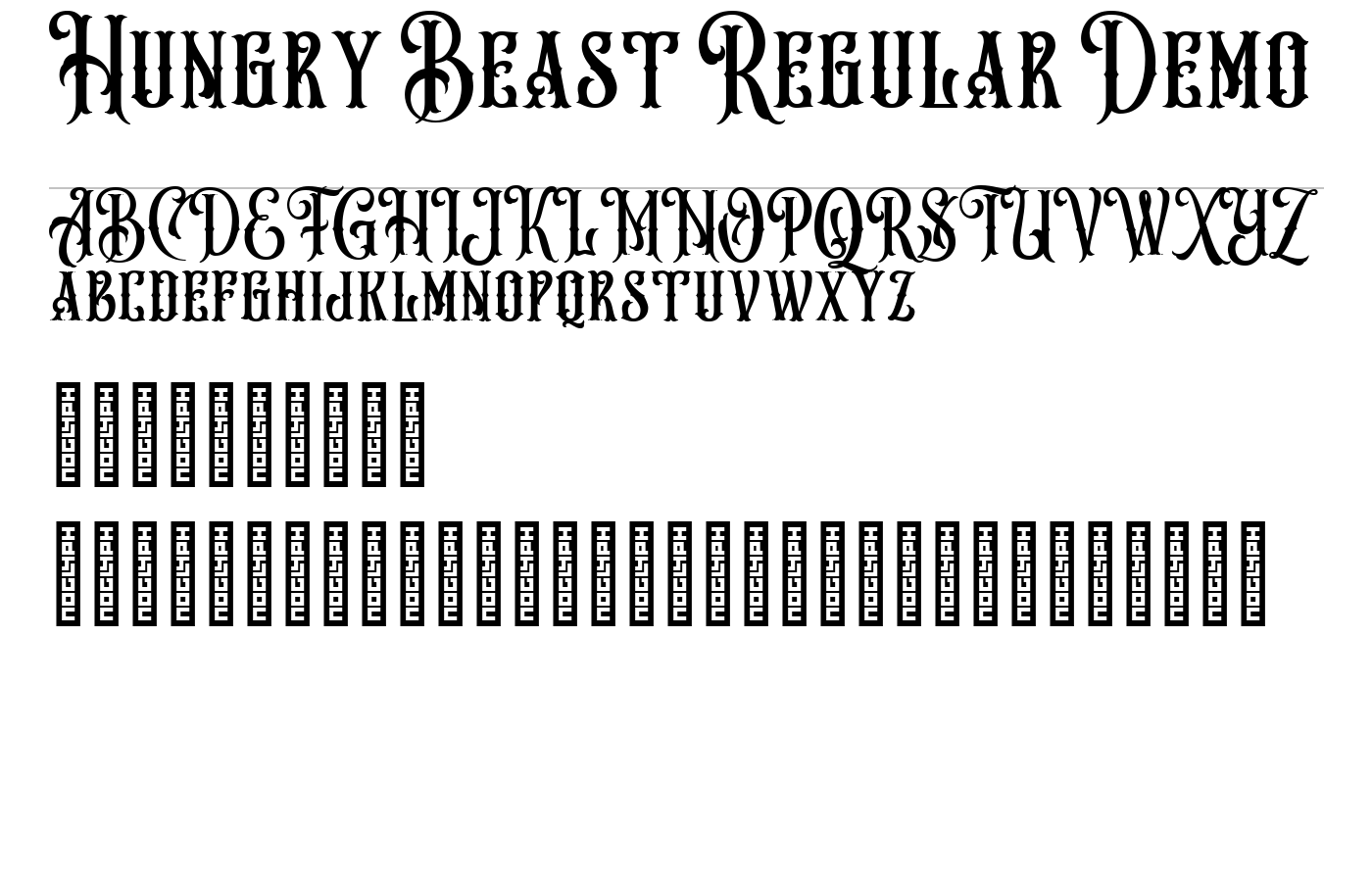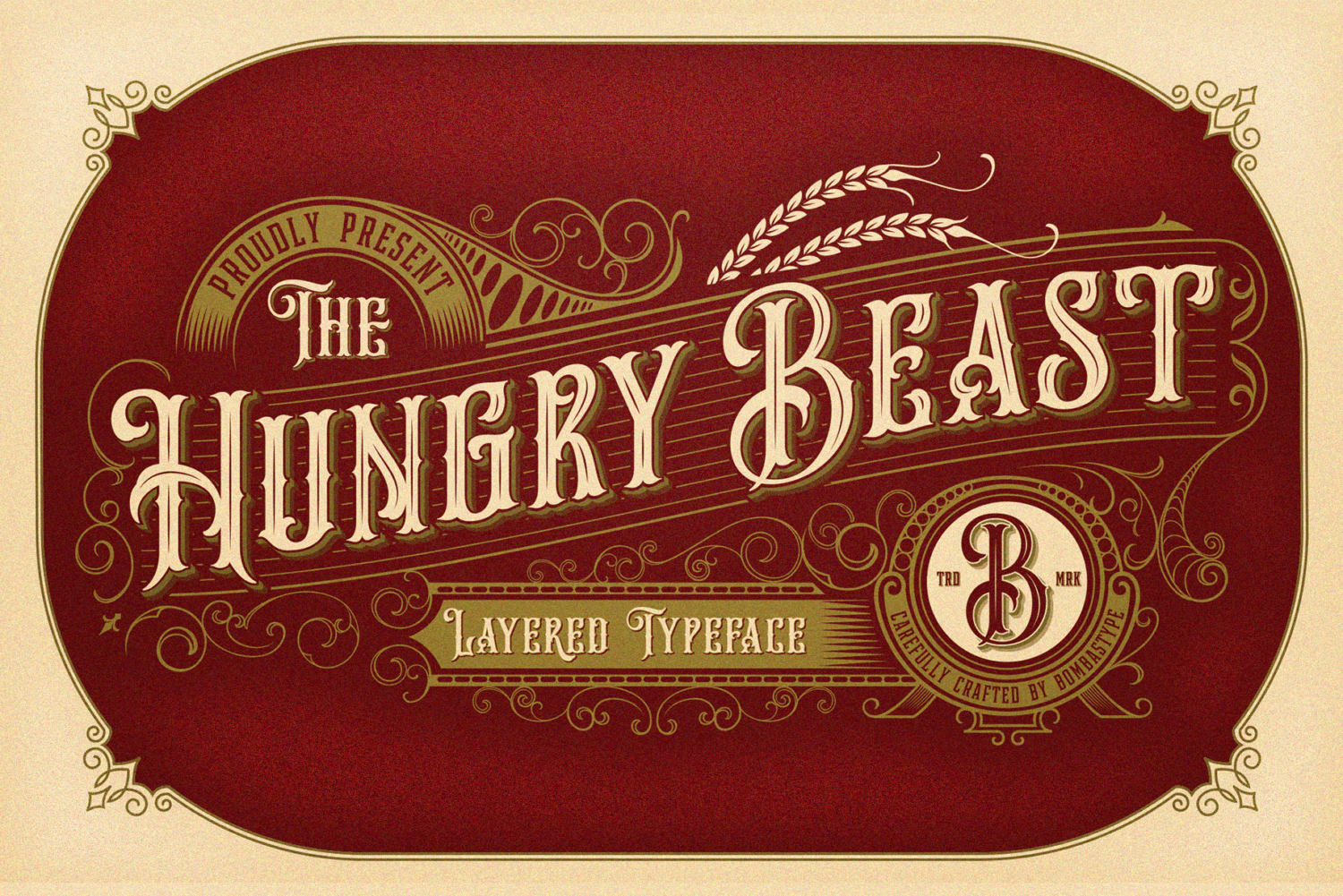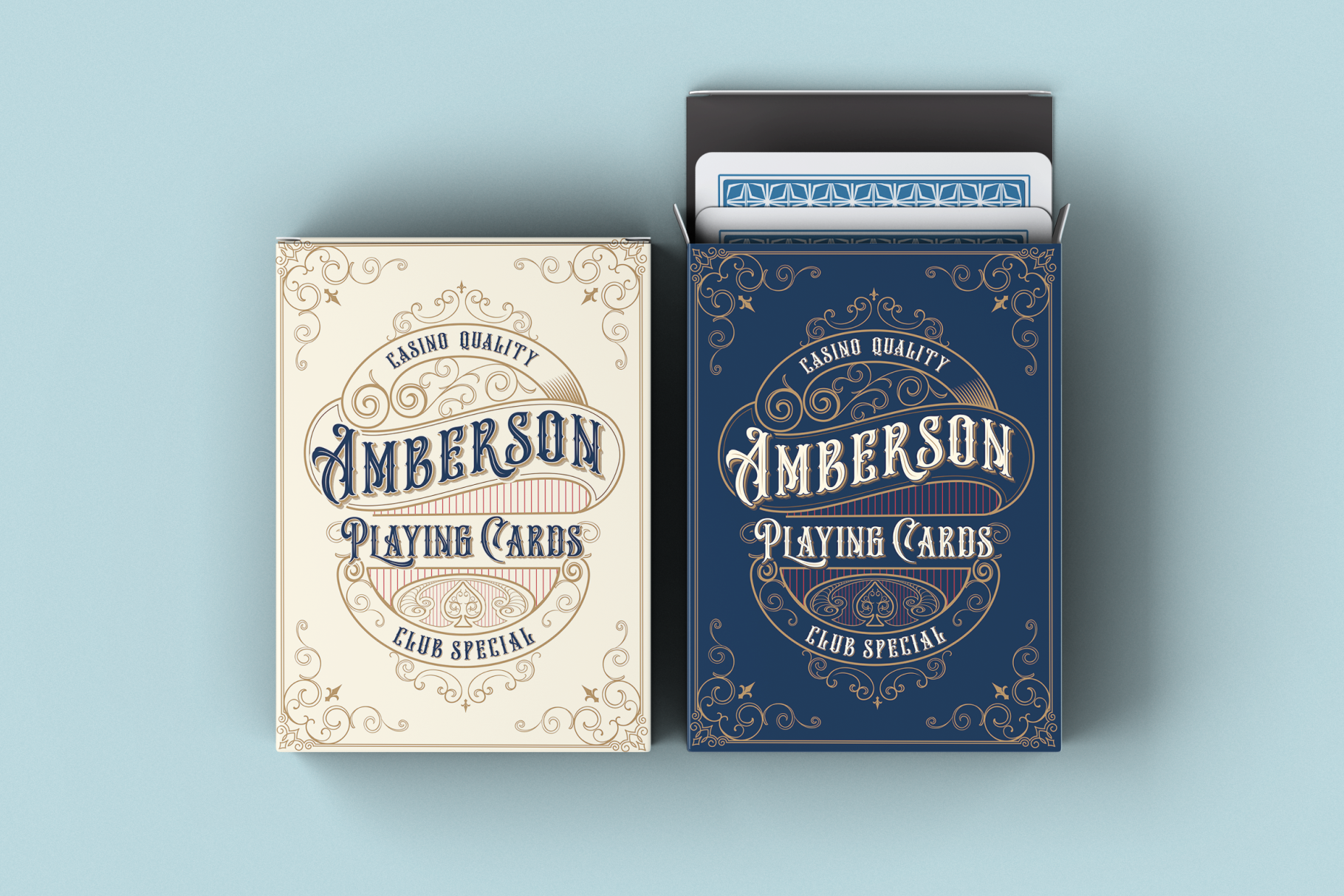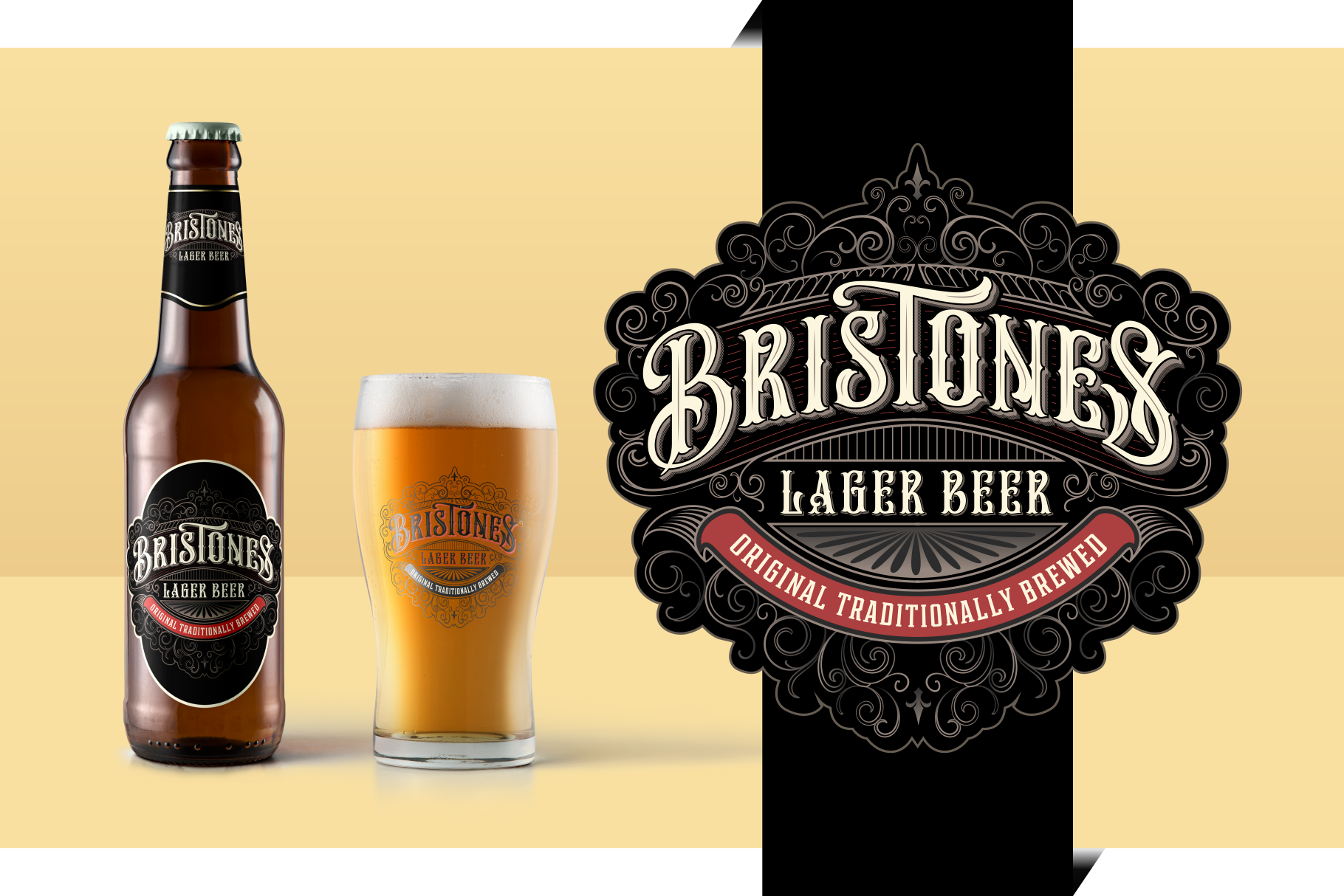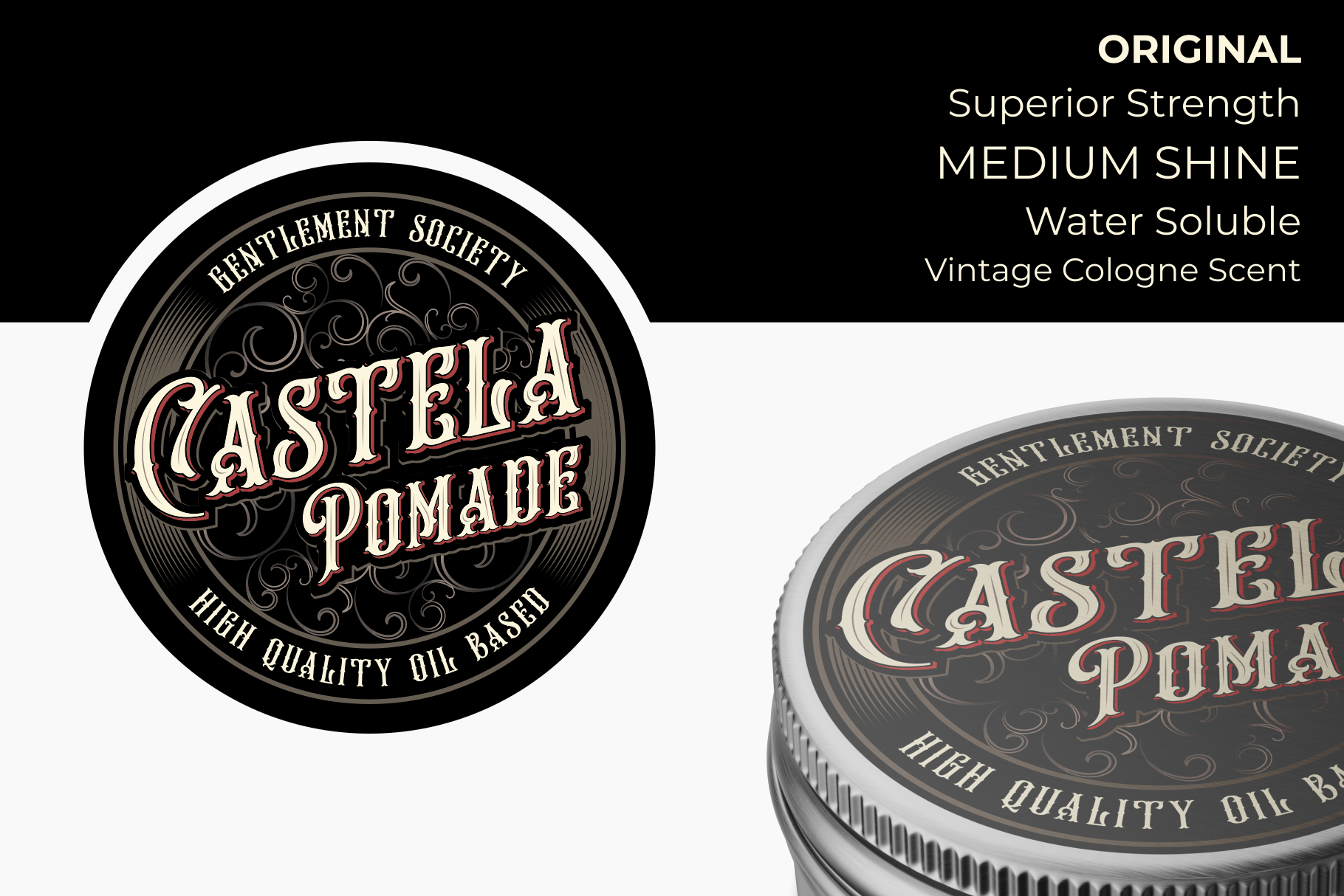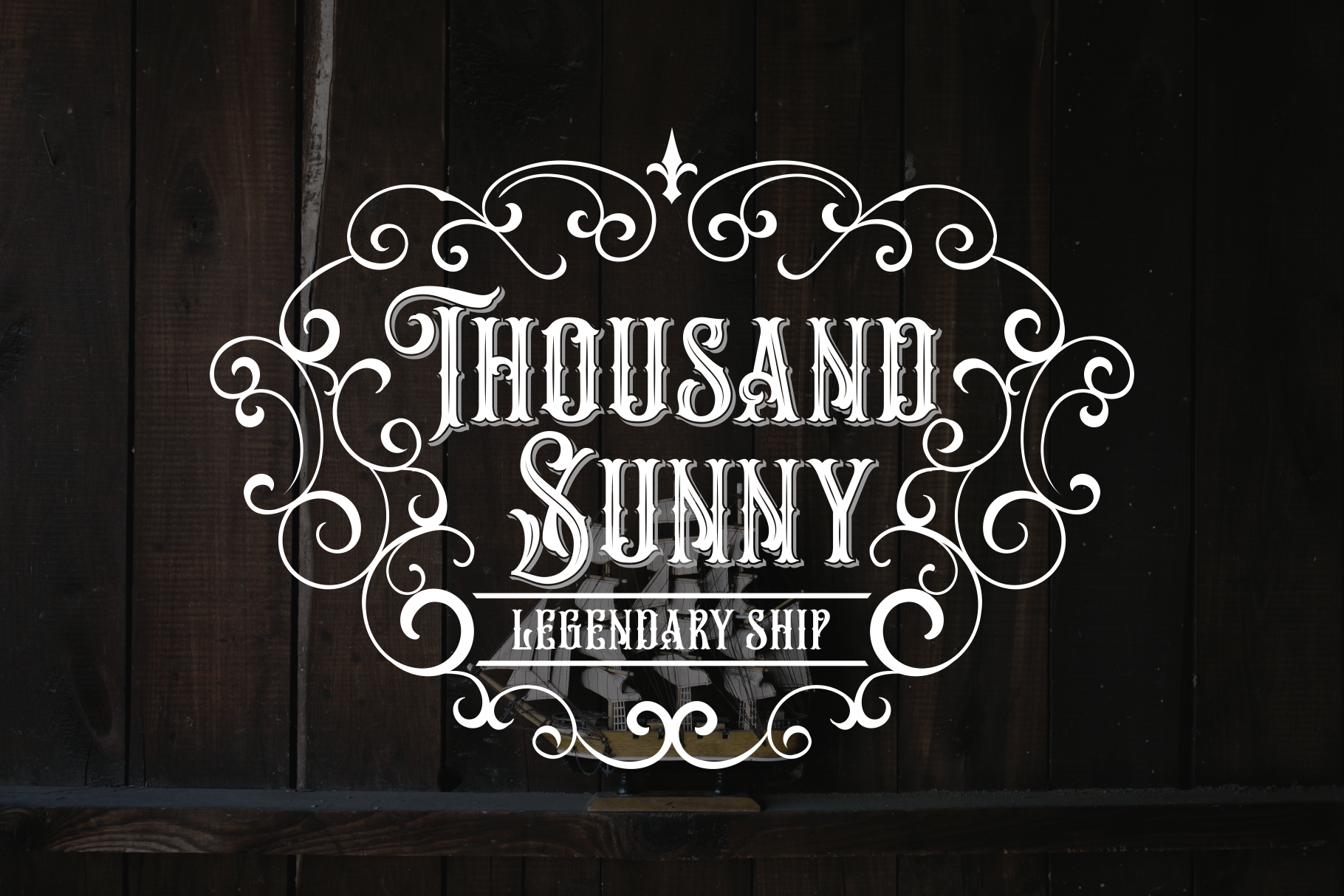
Hungry Beast Layered Family is a bold serif font with a dramatic, vintage flair, featuring high contrast strokes and intricate, sharp serifs that create a gothic, ornamental look. Its tall, condensed letterforms and distinctive flair in characters make it ideal for eye-catching headlines, logos, and packaging that seek a striking, old-world yet bold personality. This font works wonderfully for brands or designs aiming to convey strength, uniqueness, and a classic yet rebellious aesthetic.
Hungry Beast Layered Family
About Hungry Beast Layered Family